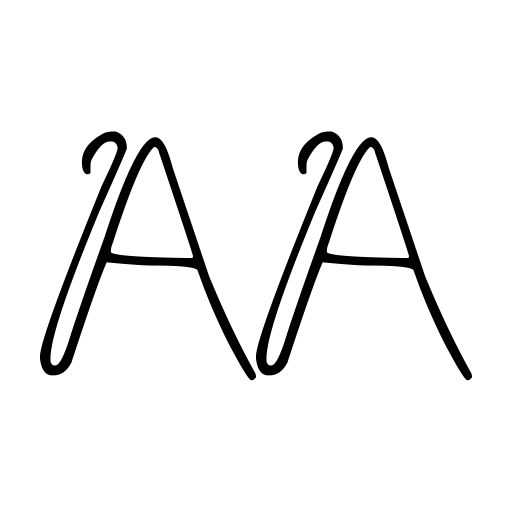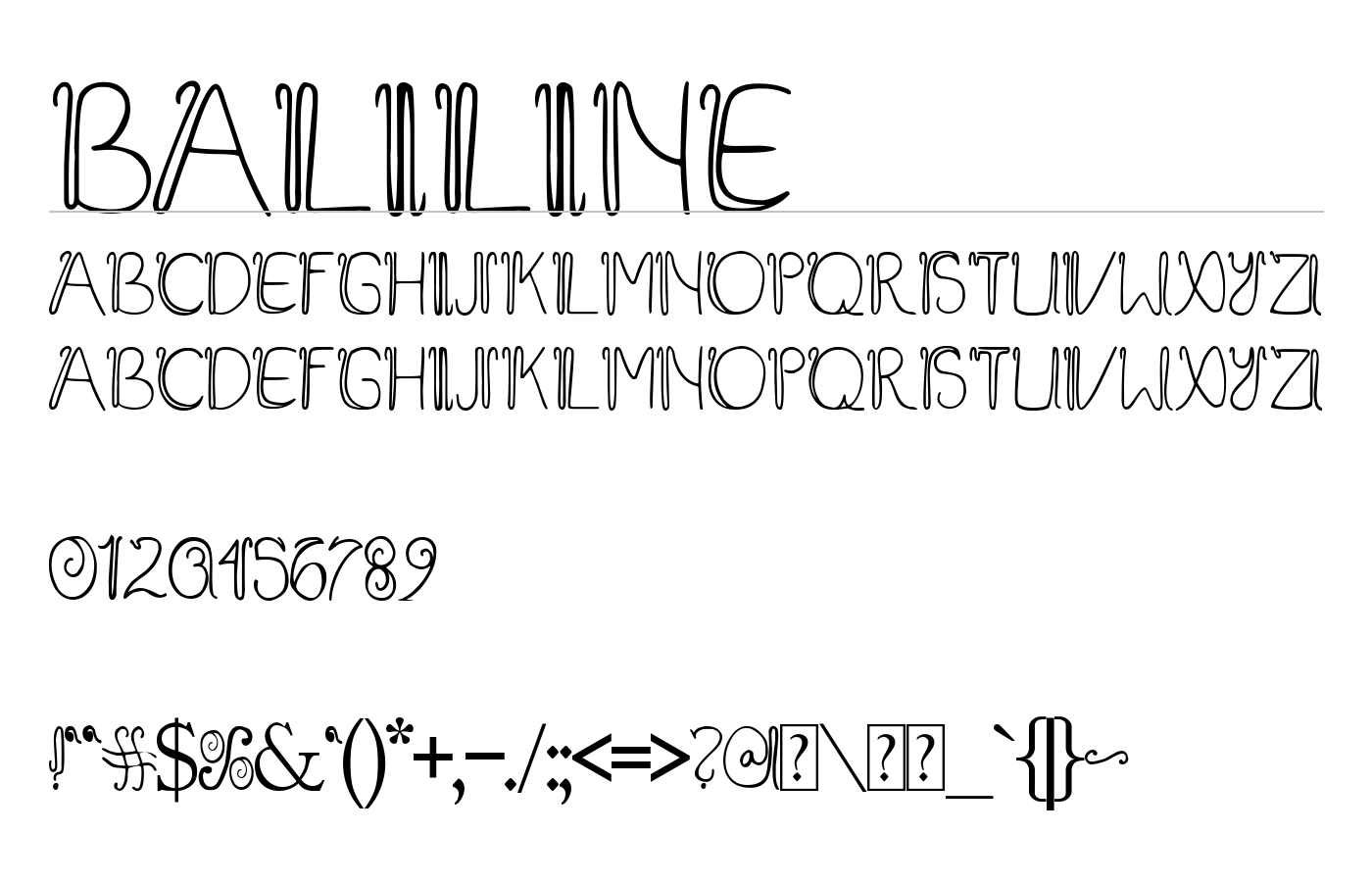
Baliline is a whimsical and decorative display font featuring thin, rounded strokes with a hand-drawn, playful feel. Its tall, narrow letterforms and unique curly details make it ideal for creative, lighthearted branding, invitations, or fun editorial headlines where a distinctive, artistic touch is desired. This font works best in large sizes where its quirky style can shine without compromising readability.
Baliline Font
About Baliline Font